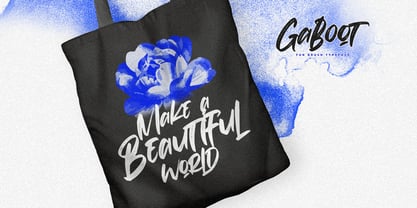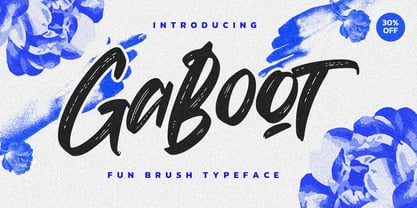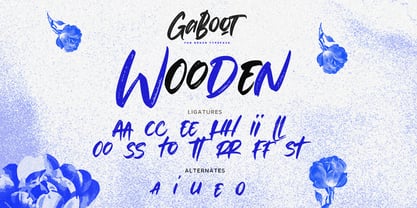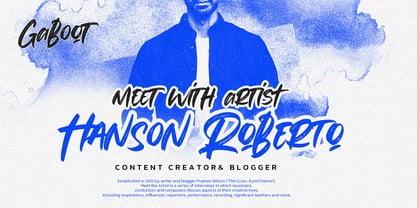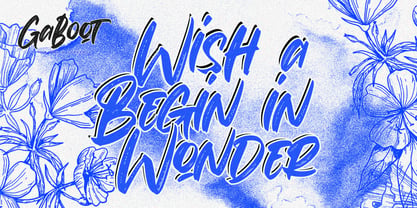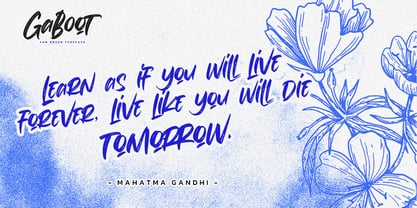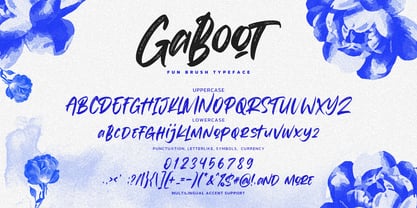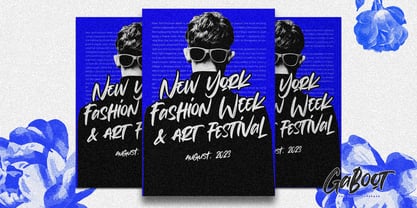
Gaboots
por Almarkha Type
La familia tipográfica Gaboots fue diseñada por Abdul Malik Wisnu y publicada por Almarkha Type. Gaboots contiene 1 estilos. Más información sobre esta familia
Gaboot is a lively and expressive brush typeface characterized by bold, sweeping strokes and a playful handwritten spirit. Its dynamic curves and textured brush details evoke a sense of movement, making Gaboot feel spontaneous, artistic, and full of character. With its modern brush aesthetic and natural ink flow, Gaboot infuses a fresh and creative touch into any design, making it ideal for projects that require personality, excitement, and a strong visual rhythm.
Diseñadores: Abdul Malik Wisnu
Fundición: Almarkha Type